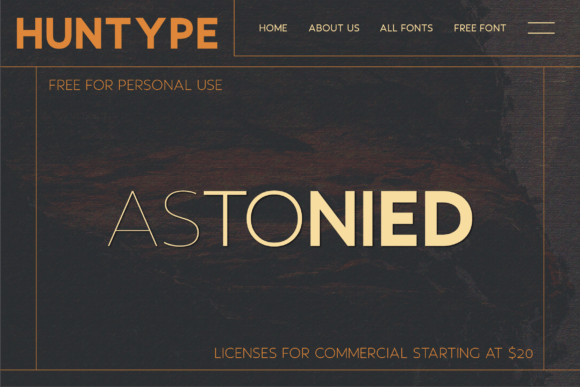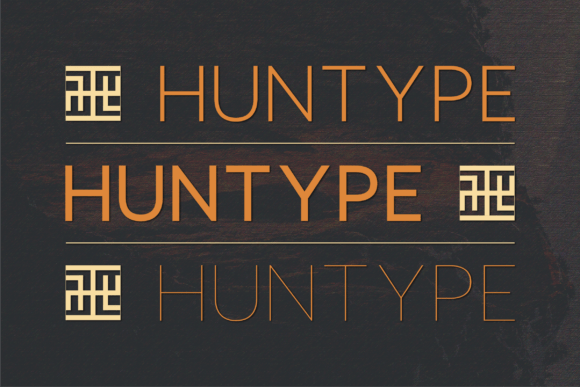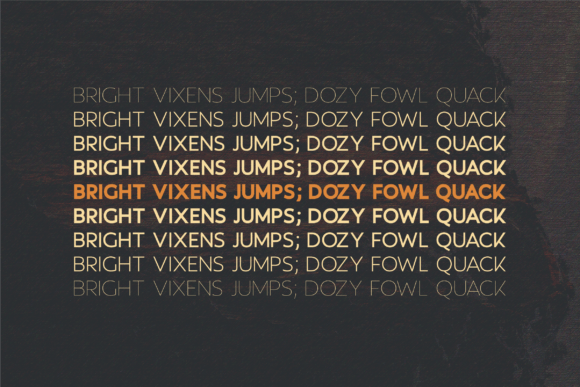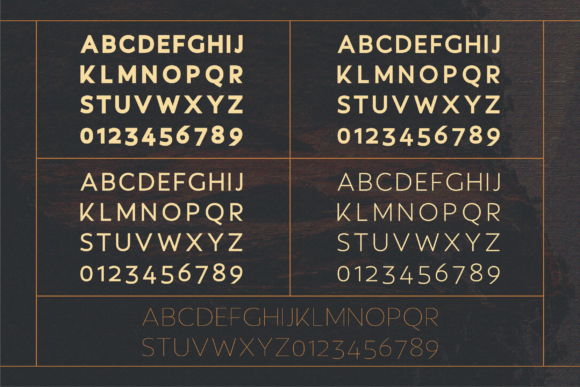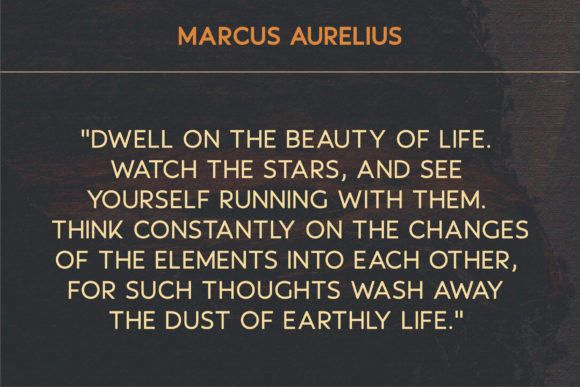
Astonied Font: Elevate Your Design with Modern Sophistication
In the realm of typography, few font families have managed to strike a balance between modernity and sophistication as effectively as Astonied Font. This versatile and contemporary typeface is a masterful blend of clean geometric forms and subtle elegance, making it an indispensable tool for designers and crafters seeking to elevate their projects. With its precise letterforms, adaptable style, and harmonious blend of sharp lines and gentle curves, Astonied Font is poised to transform the visual landscape of branding, logos, headlines, and a wide array of design endeavors.
The Essence of Astonied Font
At the heart of Astonied Font lies a meticulous design philosophy that marries the simplicity of geometric shapes with a refined aesthetic. Each character is crafted with precision, boasting clean lines and a contemporary look that resonates with modern design sensibilities. The font family is characterized by its exceptional legibility, making it an excellent choice for both digital and print applications. Whether you’re working on a sleek corporate brand identity, a creative logo, or an eye-catching headline, Astonied Font brings a level of sophistication and professionalism that is hard to match.
Versatility Across Weights
One of the standout features of Astonied Font is its comprehensive range of weights, offering designers the flexibility to explore a vast spectrum of design possibilities. From the light, subtle touches that add elegance and finesse to a design, to the bold, impactful statements that demand attention, Astonied Font covers it all. This versatility ensures that the font can be seamlessly integrated into various projects, lending a modern and professional feel to any endeavor. Whether you’re aiming for a minimalist approach or a more dramatic effect, Astonied Font provides the tools to achieve your creative vision with precision and style.
Applications of Astonied Font
The adaptability and aesthetic appeal of Astonied Font make it suitable for a myriad of applications. In branding and logo design, it helps create a lasting impression with its clean and sophisticated look. For headlines and titles, it adds a touch of modernity and dynamism, capturing the reader’s attention and conveying the message with clarity and impact. Moreover, its geometric aesthetic makes it particularly well-suited for projects that require a contemporary and refined appearance, such as editorial design, advertising, and digital media.
Why Choose Astonied Font?
Choosing Astonied Font for your design projects comes with numerous benefits. Firstly, its modern and versatile nature ensures that your designs will stand out in a crowded visual landscape. Secondly, its adaptability across various weights and applications makes it a practical choice for a wide range of creative endeavors. Additionally, the font’s clean geometric aesthetic and subtle sophistication provide a timeless quality, ensuring that your designs remain relevant and appealing for years to come.
Astonied Font represents a significant advancement in typography, offering designers and crafters a powerful tool to express their creativity and bring their visions to life. Its blend of modern geometric forms and subtle sophistication sets a new standard for font design, providing a harmonious blend of style, versatility, and professionalism. Whether you’re a seasoned designer or an enthusiastic crafter, Astonied Font is an invaluable resource that can elevate your projects and help you achieve your design goals with elegance and impact.
Getting Started with Astonied Font
To harness the full potential of Astonied Font, explore its range of weights and applications in your design projects. Experiment with different weights to find the perfect balance for your creative vision. Consider the font’s versatility and aesthetic appeal when working on branding, logos, headlines, and various design projects. With Astonied Font at your disposal, you’re well-equipped to create visually stunning and impactful designs that resonate with modern audiences.